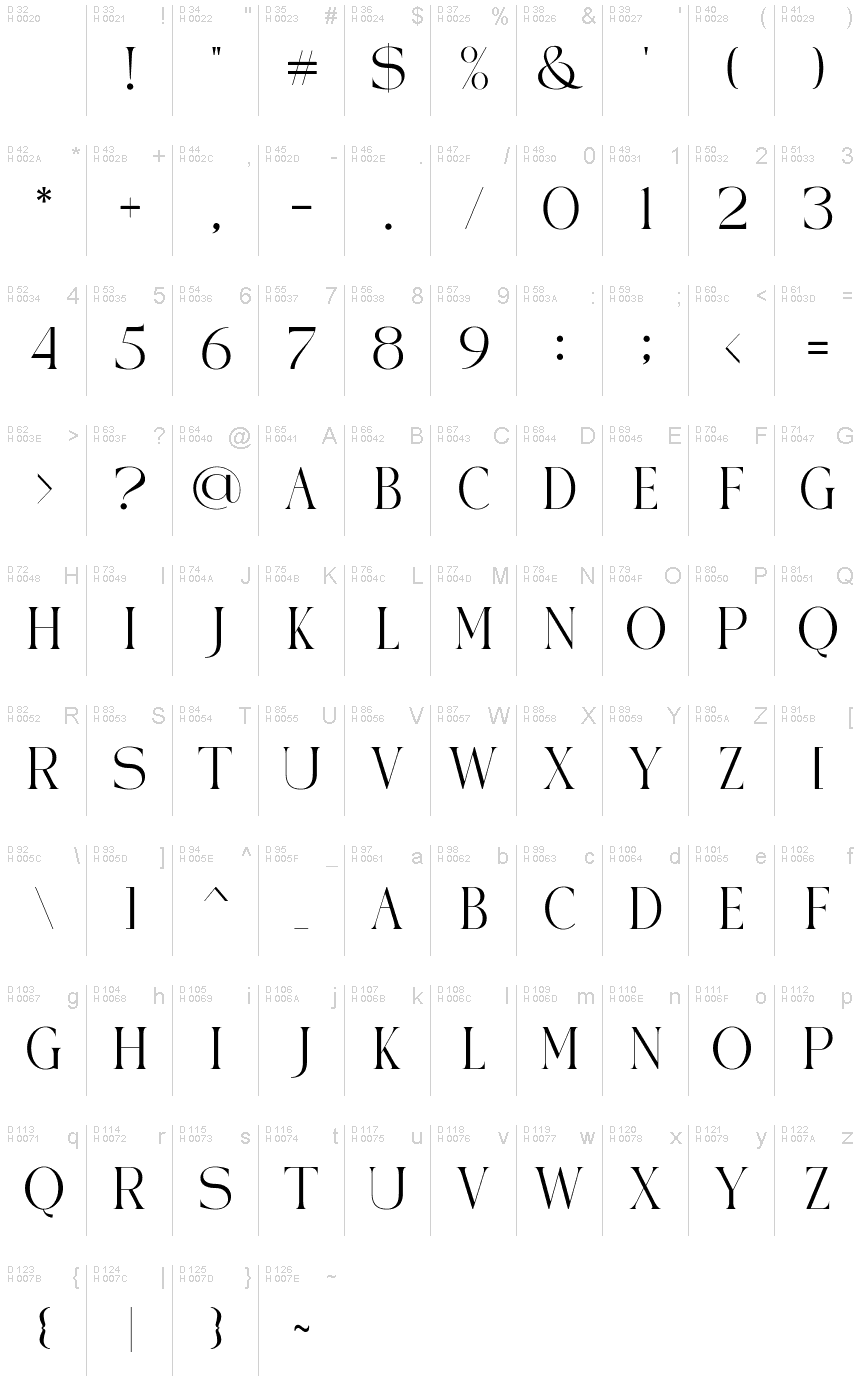
COLLENIS
COLLENIS, the elegant serif font by ToniStudio, is the perfect choice for any project requiring a touch of sophistication. With its semi-light weight and beautiful curves, this font embodies a classic and timeless aesthetic that will elevate any design. From wedding invitations to high-end fashion magazines, COLLENIS is versatile enough to suit any project in need of a refined touch. Its graceful serifs and delicate lines make it an excellent choice for branding materials, logos, and website headers. With its professional tone and polished finish, COLLENIS is sure to impress even the most discerning clients.